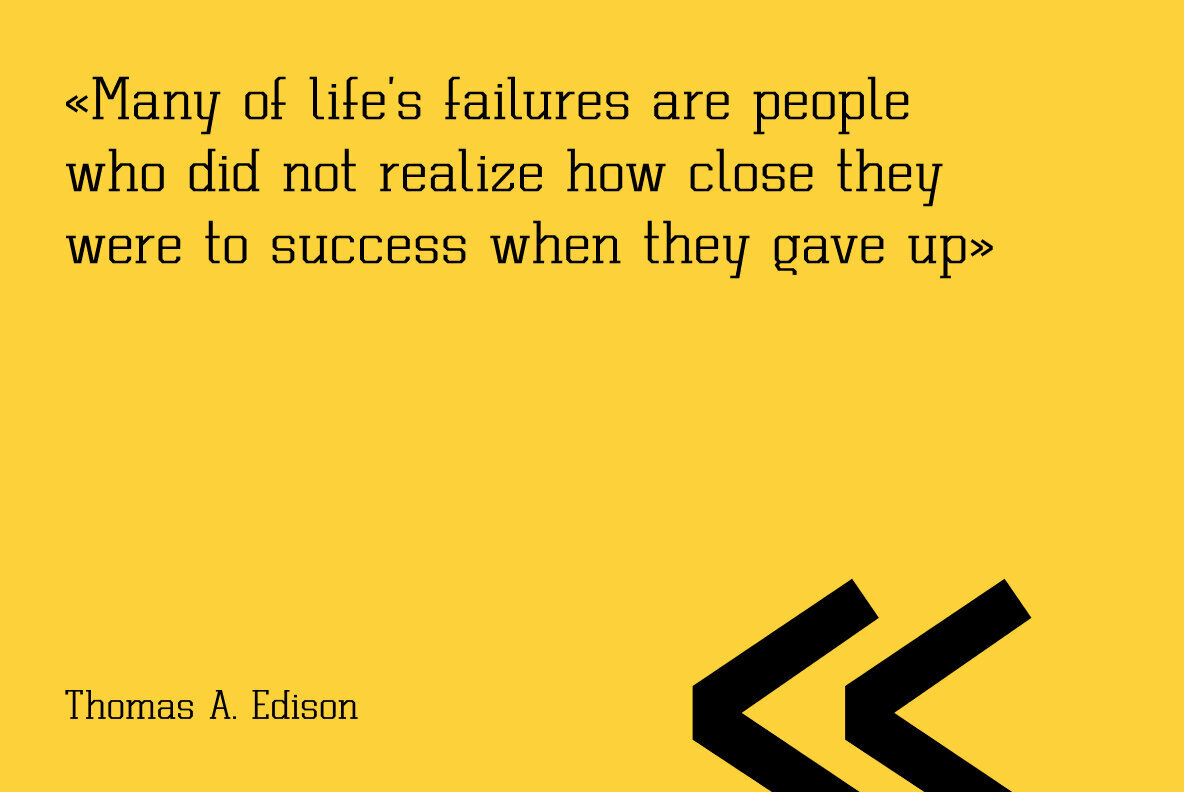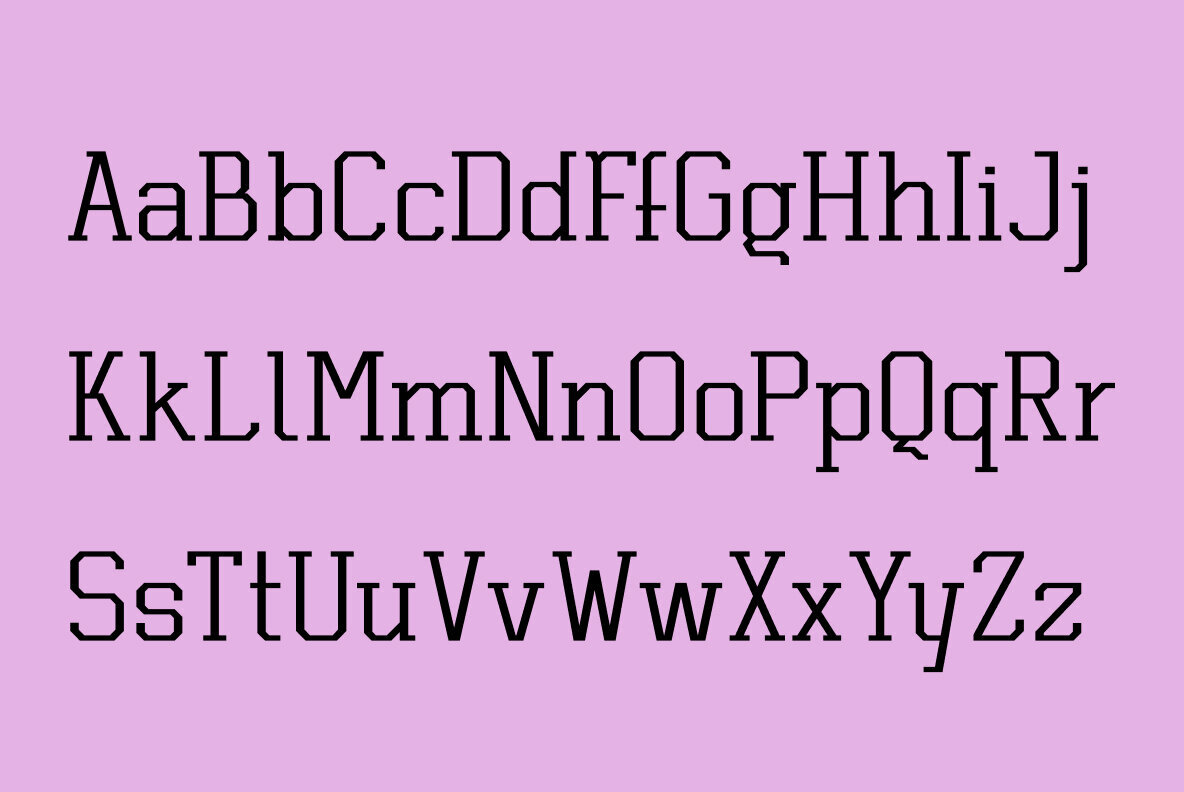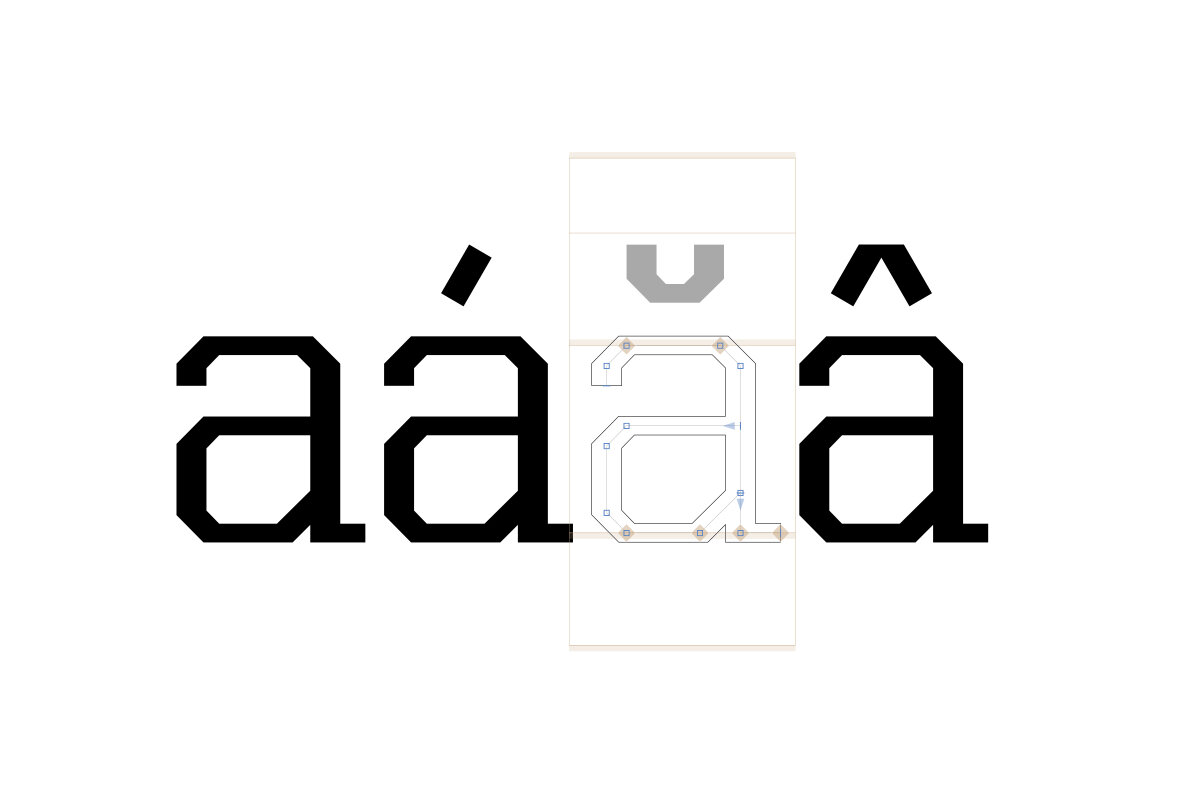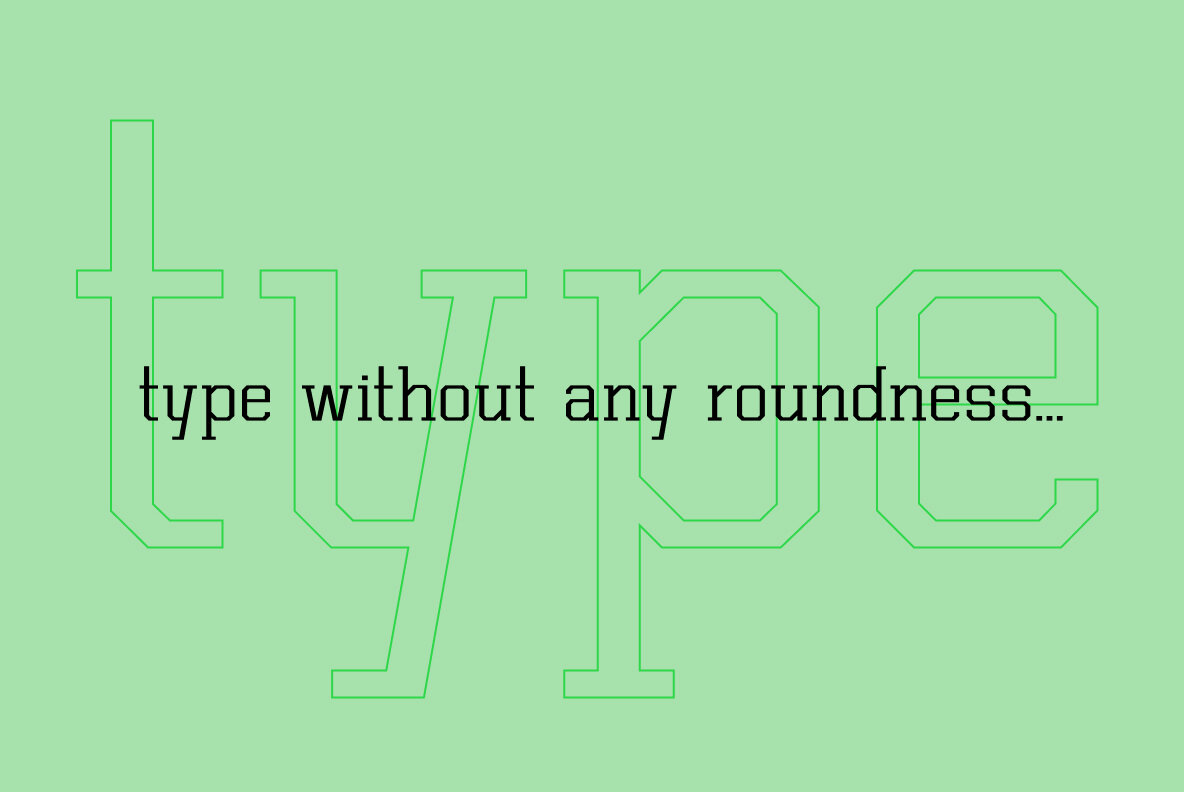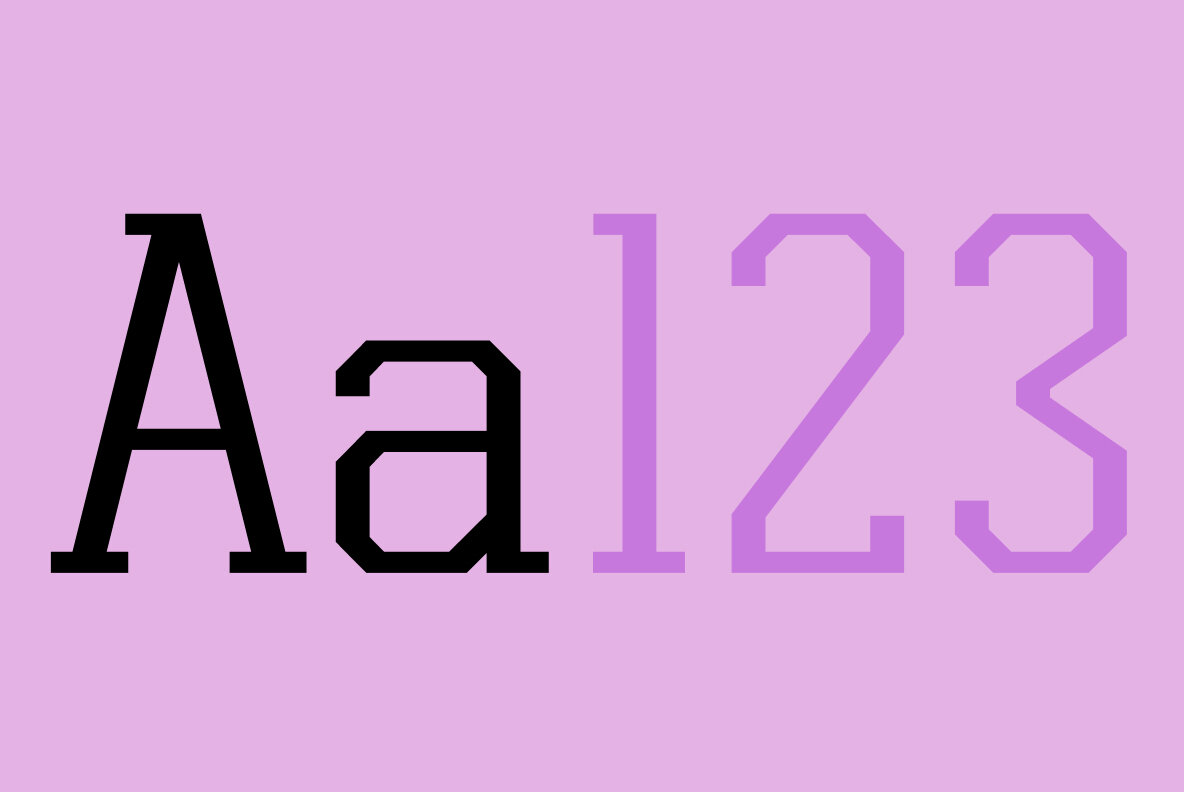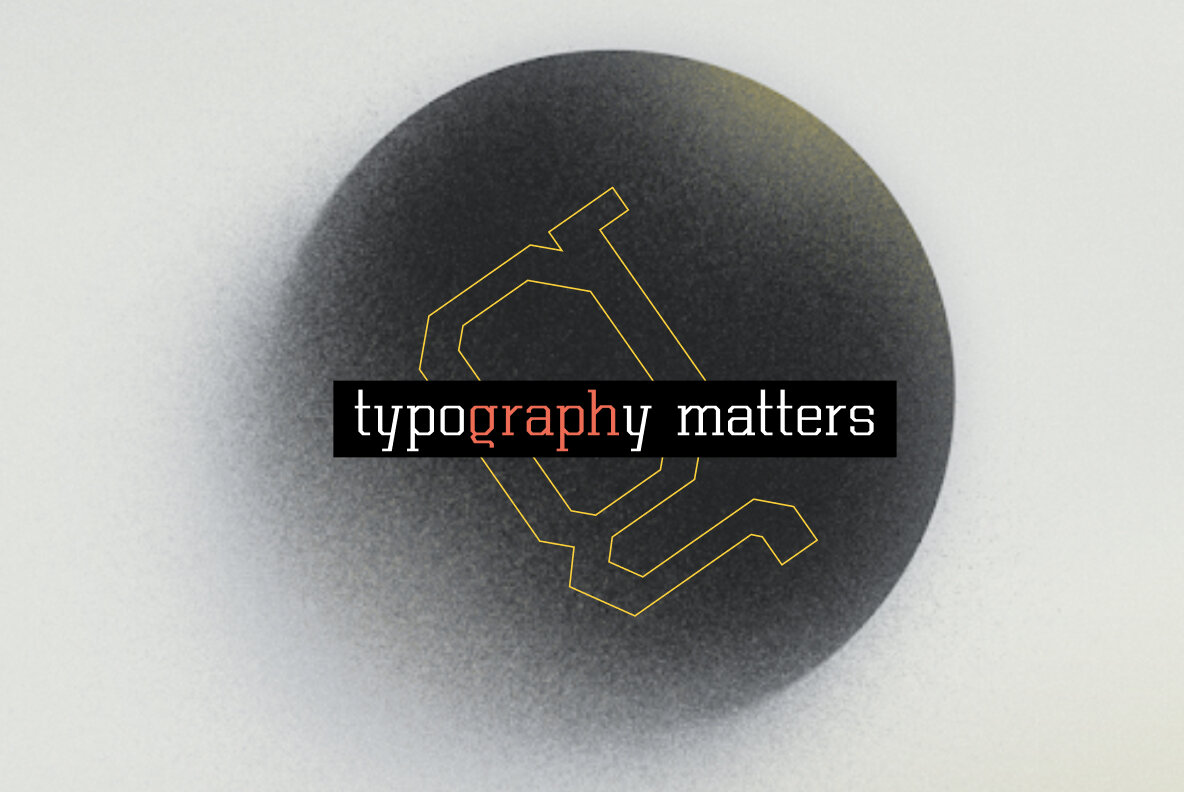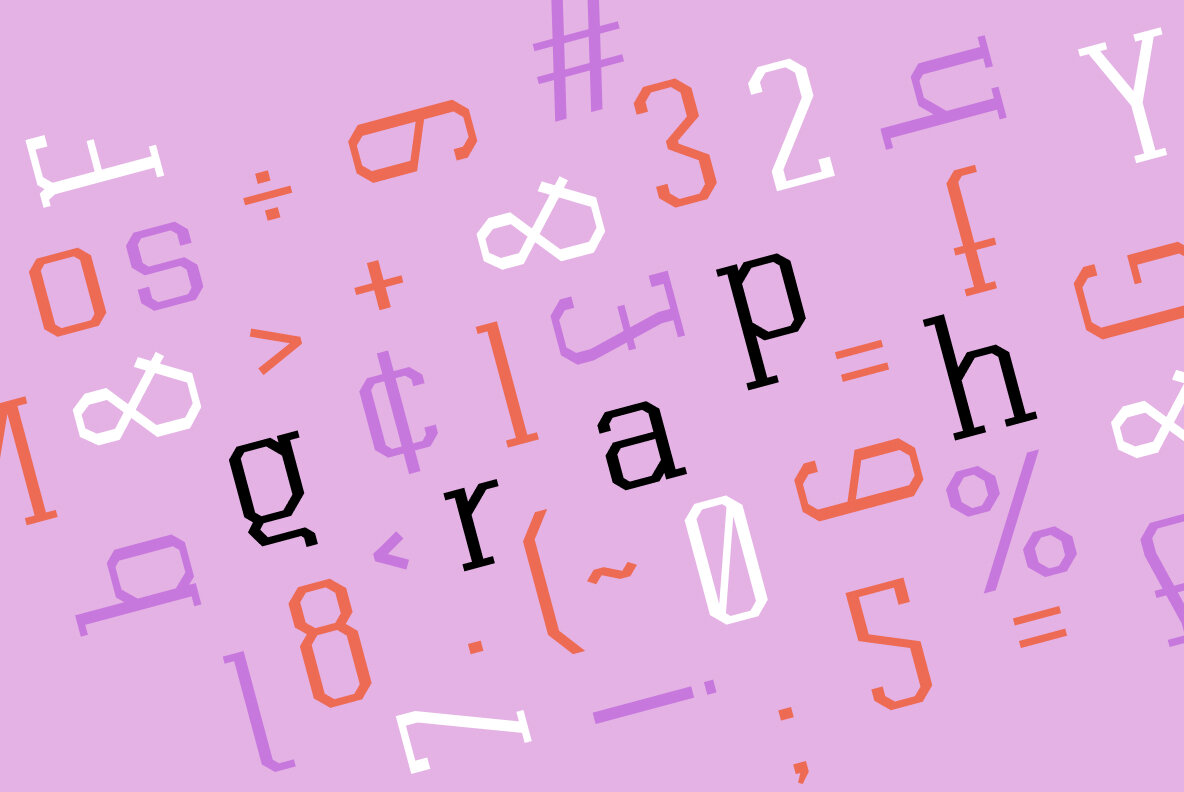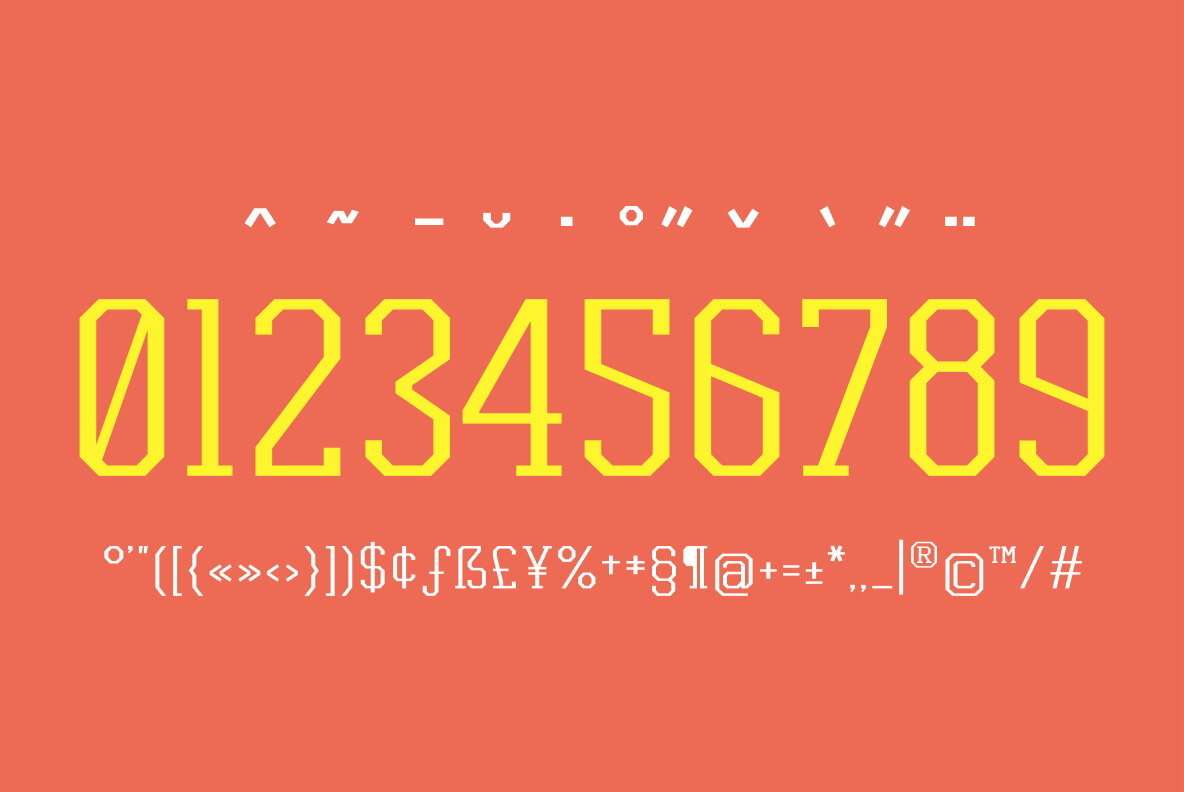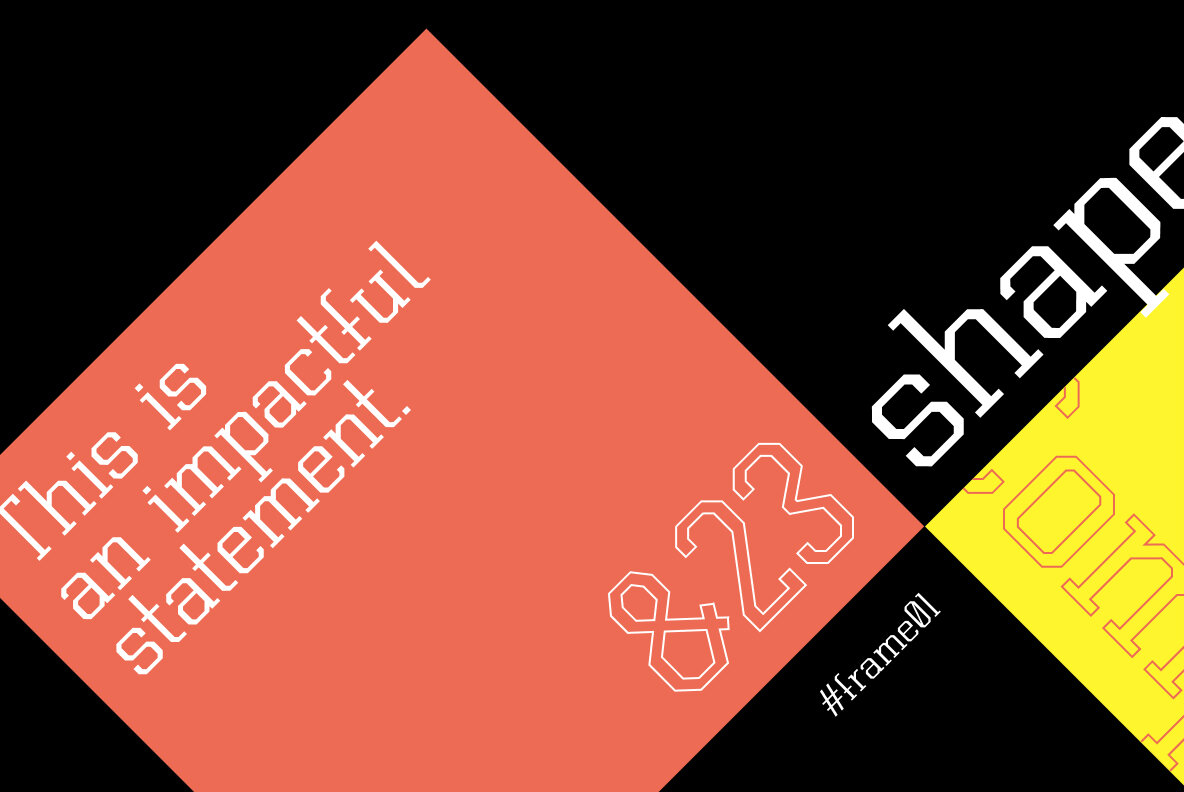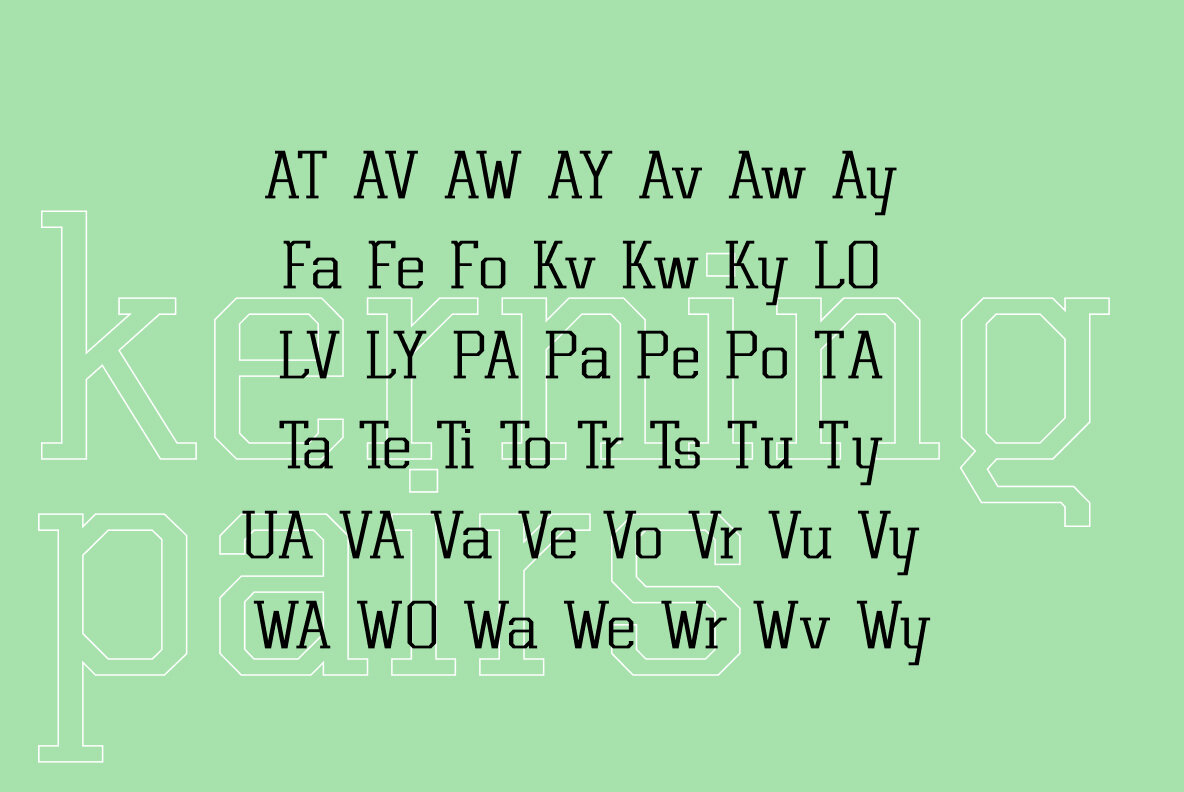
Graph Font
Graph Regular
Graph by Pasternak is a purposeful slab serif font known for its angular, uncompromising letterforms. Its distinctive character arises from the absence of rounded elements, making it a fitting choice for technical environments and digital coding frameworks. Currently available solely in a regular style, this font's strict and precise design caters to projects demanding clarity and sharpness. Each character contributes to a disciplined and organized aesthetic, ideal for conveying a modern, no-nonsense tone.Graph: A Technical Typeface for Precision Projects